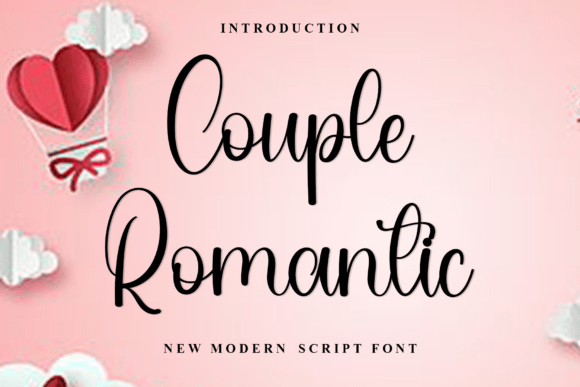
The Magic of Typography: Unveiling the Couple Romantic Font
There’s something special about creating holiday designs – the twinkling lights, the cozy atmosphere, and the joy of sharing love and cheer with others. It’s the perfect time to get creative and add a personal touch to your greeting cards, gift tags, and holiday-themed projects. And what better way to do that than with a font that captures the essence of the season?
Enter Couple Romantic Font, a festive and merry typeface that brings a touch of enchantment to your designs. With its decorative elements and whimsical flair, this font is the perfect addition to your holiday typography arsenal. Whether you’re a seasoned designer or a DIY enthusiast, Couple Romantic Font is a valuable asset that will help you create stunning and memorable holiday projects. Its PUA encoding ensures that you can access all the amazing glyphs and ligatures with ease, making it a joy to work with.
Couple Romantic Font Key Features
- Font Family: A beautiful, elegant script font designed for romantic and couple-related projects.
- Unique Characteristics: Features swashes, ligatures, and alternate characters to add a touch of romance and whimsy to designs.
Couple Romantic Font Review
When I first laid eyes on the Couple Romantic Font, I couldn’t help but feel a sense of warmth and coziness. The ✨ whimsical feel and elegant curves immediately caught my attention, making it perfect for wedding invitations, love letters, or any other romantic project.
Here are some aspects where the font truly shines:
- ✨ Whimsical feel: The font’s playful nature adds a touch of magic to any text, making it ideal for romantic and whimsical projects.
- ✨ Elegant curves: The smooth lines and flowing curves give the font a sophisticated and elegant look, perfect for formal events or special occasions.
- ✨ Variety of weights: The font comes in multiple weights, allowing you to choose the perfect fit for your project.
However, I do have some concerns:
- ⚠️ Limited legibility: At smaller font sizes, the font can become difficult to read, making it less suitable for body text or long passages.
- ⚠️ Not suitable for bold headlines: While the font has multiple weights, the boldest weight can still look a bit delicate for headlines or titles.
Overall, the Couple Romantic Font is a beautiful and charming addition to any designer’s toolkit. While it may have some limitations, its unique feel and elegant curves make it perfect for romantic and whimsical projects.
The Couple Romantic Font is ideal for:
- Love letters and romantic cards
- Anniversary and Valentine’s Day designs
- Photography captions and quotes
Alternatives to Couple Romantic Font for Designers
Great Vibes Font is a beautiful, elegant script font perfect for adding a touch of romance and sophistication to your designs. It’s ideal for wedding invitations, love letters, and other romantic occasions. Compared to Couple Romantic Font, Great Vibes Font has a more refined and classic feel, making it a great choice for designers who want to convey a sense of luxury and elegance.
Dancing Script Font is a lively and playful script font that’s perfect for adding a whimsical touch to your designs. It’s ideal for creating a fun and carefree atmosphere, making it great for children’s birthday parties, summer camps, and other lighthearted occasions. Compared to Couple Romantic Font, Dancing Script Font has a more energetic and playful feel, making it a great choice for designers who want to add some excitement to their designs.